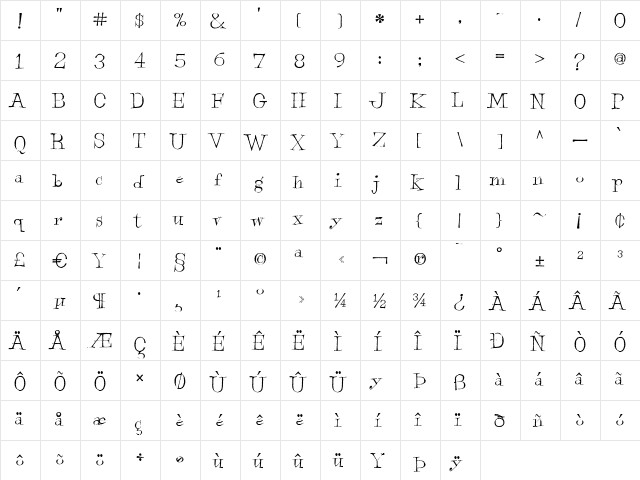
PinkFlamingo Regular
Design Context for PinkFlamingo Typeface
PinkFlamingo is a composed and adaptable typeface that performs quietly and consistently across a wide range of design contexts.